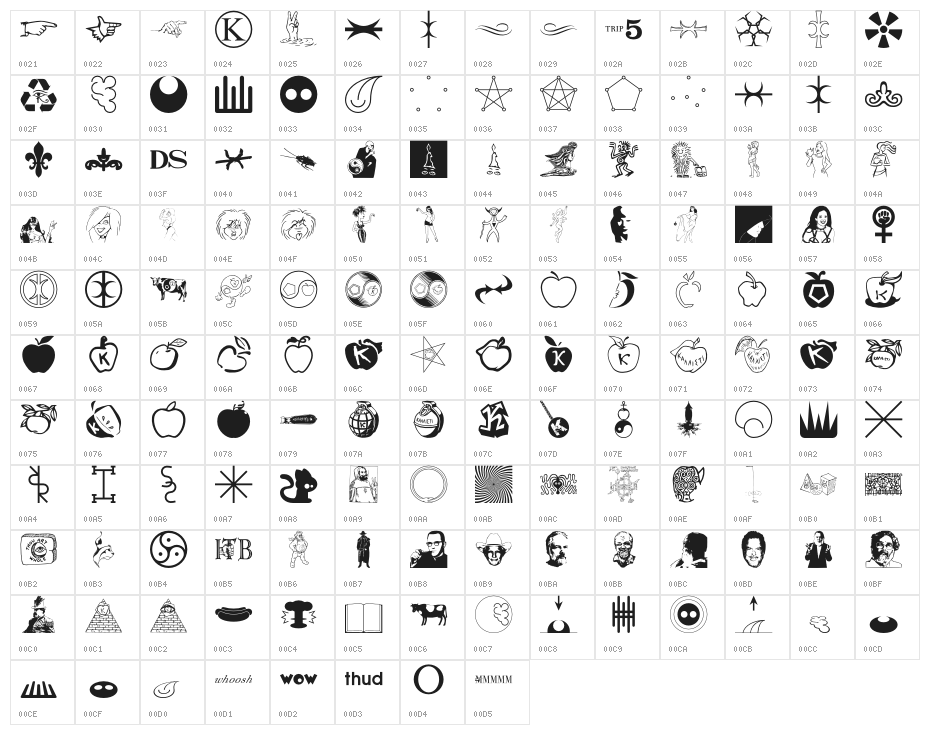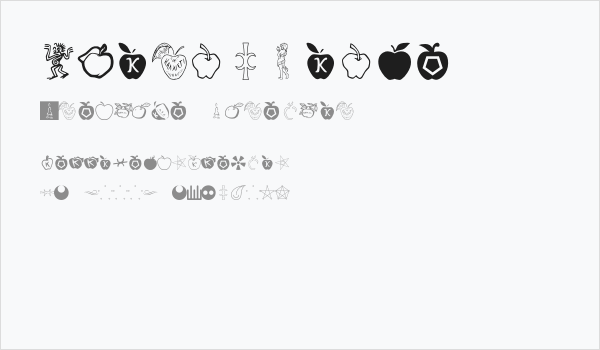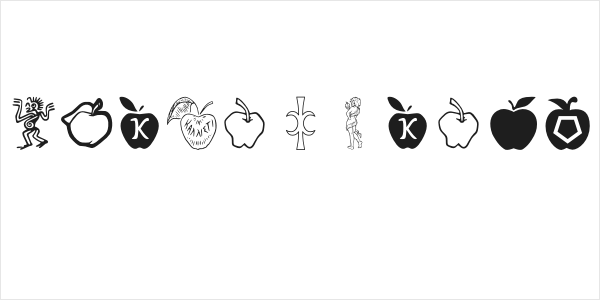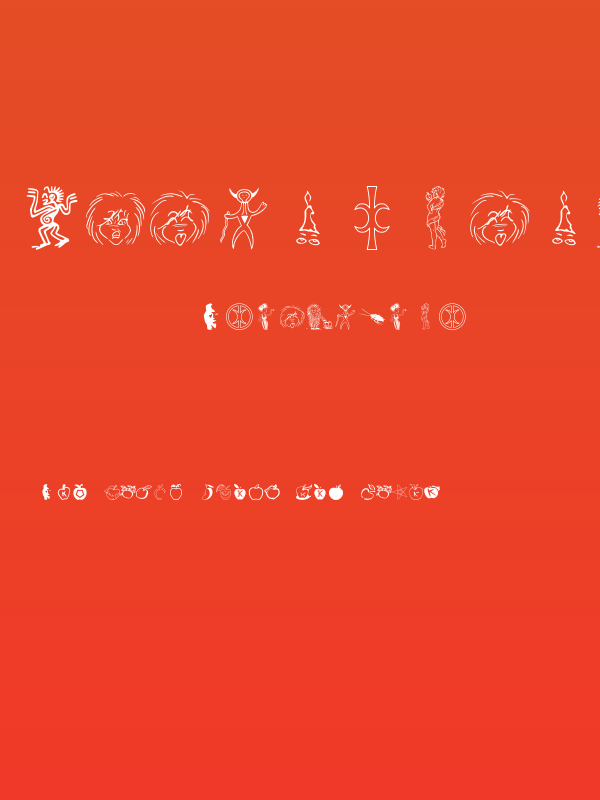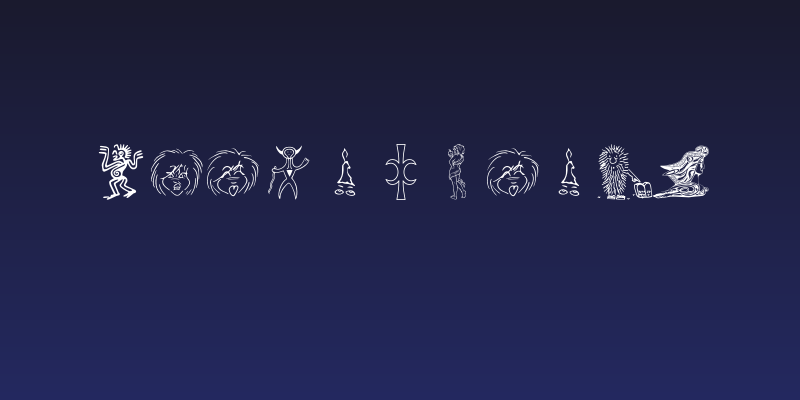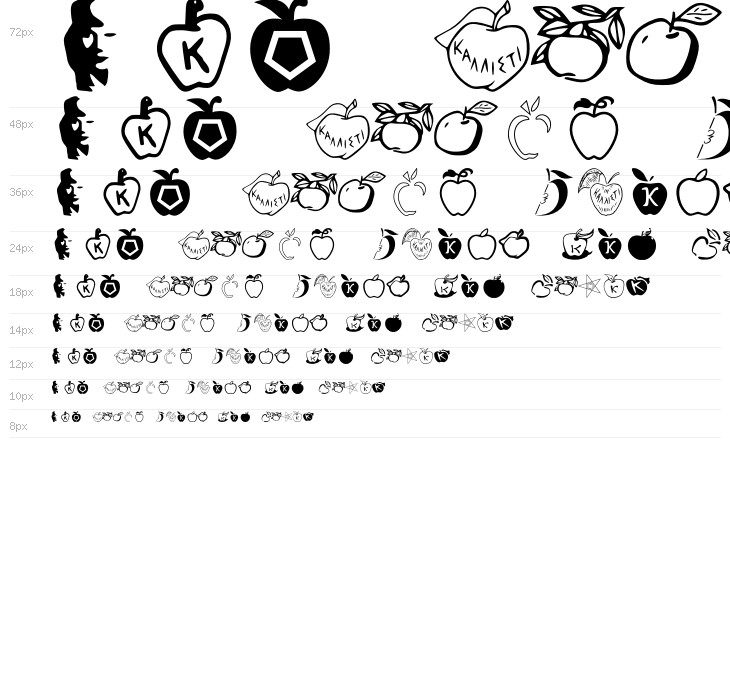
Fnord-Hodge Font
Fnord-Hodge Description
A highly eclectic and illustrative collection of glyphs, featuring a mix of hand-drawn cartoon figures, abstract symbols, apples with various embellishments, geometric shapes, and playful icons. The style is whimsical and decorative, with each character or symbol rendered in a unique, often humorous or surreal manner. There is no consistent baseline, x-height, or cap height, as the glyphs vary widely in size and form.
| Overall Style | Decorative, Whimsical, Surreal, Playful |
| Use Case | Logos, Posters, Art projects, Display titles |
| Proposed Projects | Posters, album covers, zines, alternative comics, event flyers, creative branding, art projects. |